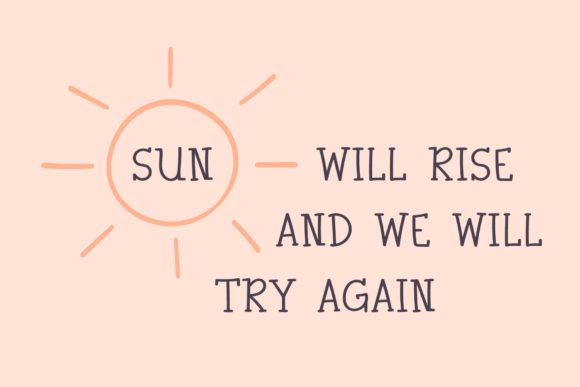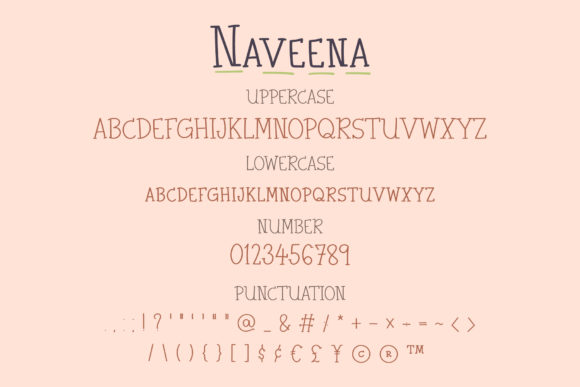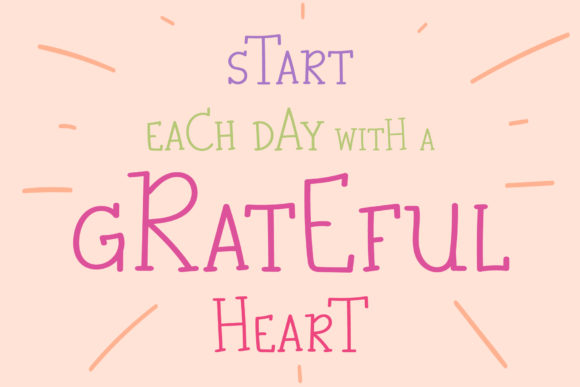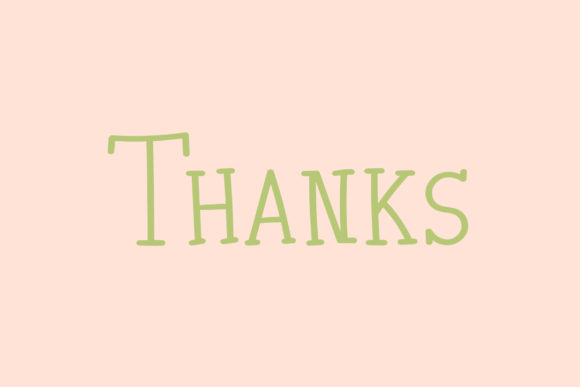
Introduction to Naveena Font
You’ve finally nailed down that creative idea for your next project, and it’s time to bring it to life. But, as you begin to design, you realize that the perfect font is missing – one that perfectly captures the quirky essence of your vision. That’s where Naveena Font comes in – a simple yet striking serif font that can elevate any design project to new heights.
Whether you’re a seasoned designer or just starting out, having a reliable design resource like Naveena Font can make all the difference. With its high-quality design and transparent background, this font is perfect for any creative project that requires a touch of sophistication and whimsy.
Key Features of Naveena Font
- High-quality font with a unique and creative design, perfect for various projects and designs.
- Designed to be used in a variety of creative projects, including digital art, graphic design, and publishing.
Honest Review: Naveena Font
I recently had the chance to work with the Naveena Font, and I must say it’s been a game-changer for my design projects. This high-quality font has been a valuable addition to my design resource collection.
- What works well: ✨ The Naveena Font offers a unique, elegant style that’s perfect for creative projects that require a touch of sophistication. The transparent background feature makes it easy to work with and customize.
- What works well: ✨ The font’s versatility makes it suitable for a wide range of design applications, from corporate branding to editorial content.
However, there are a few limitations to consider. The Naveena Font may not be the best choice for projects that require bold, attention-grabbing typography. Additionally, the font’s delicate style may not be suitable for use in extremely small sizes.
Overall, I’m impressed with the Naveena Font and would highly recommend it to designers looking for a high-quality, creative solution for their projects.
Tips for Getting the Most Out of Naveena Font
For a high-quality look, use the Naveena Font on a transparent background. This will allow the font to stand out and create a clean, modern design. You can also experiment with different font sizes and colors to achieve the desired effect.
The Naveena Font is perfect for creative projects such as graphic design, branding, and digital art. Its high-quality design and transparent background make it an ideal choice for creating visually appealing and professional-looking designs.
How can I customize the Naveena Font to fit my design project’s needs?
The Naveena Font is a highly customizable design resource that allows you to adjust various settings to fit your creative project’s needs. You can modify the font’s size, color, and style using your design application’s built-in font tools. Additionally, you can also use font editing software, such as FontForge or FontLab, to further customize the font